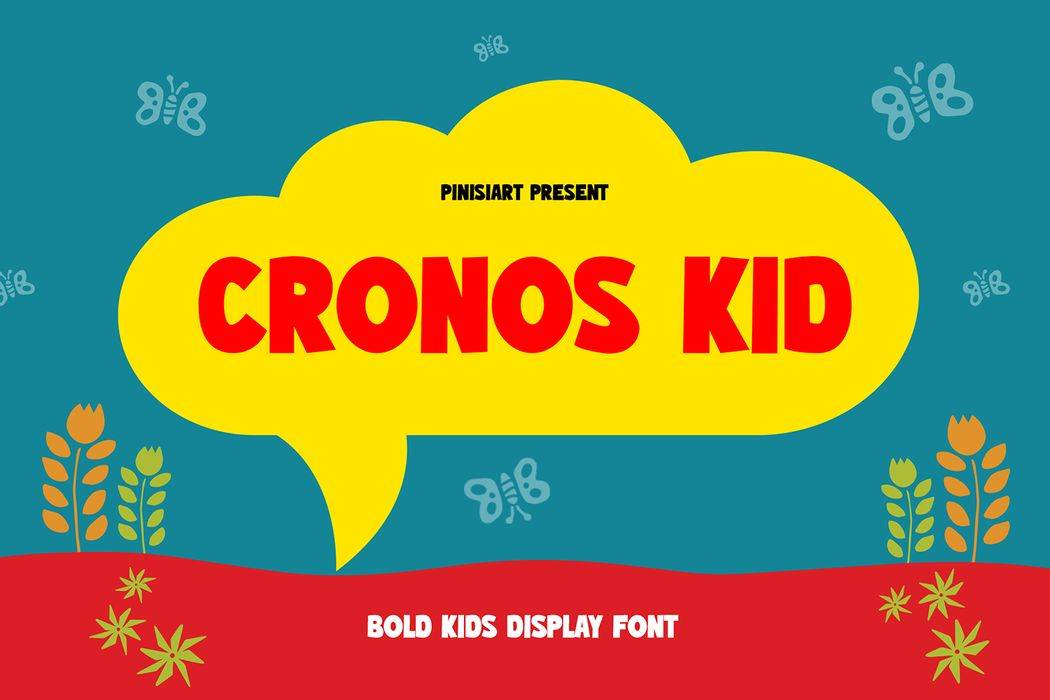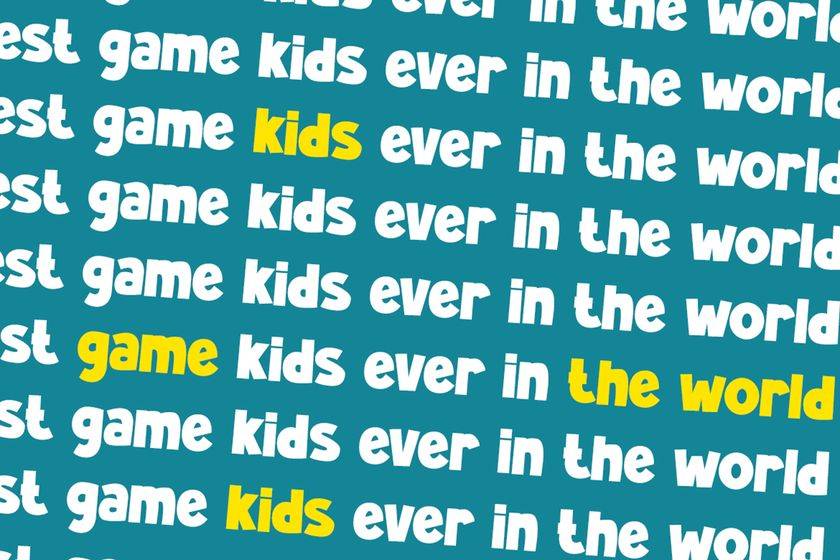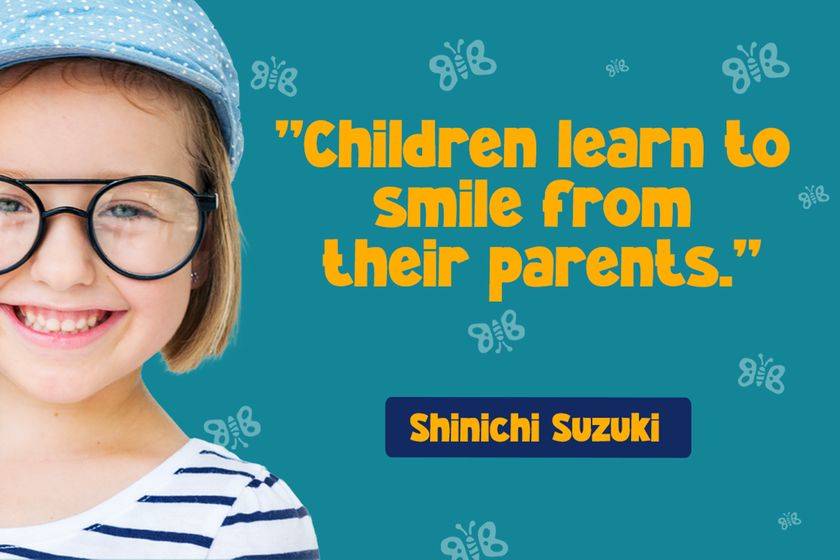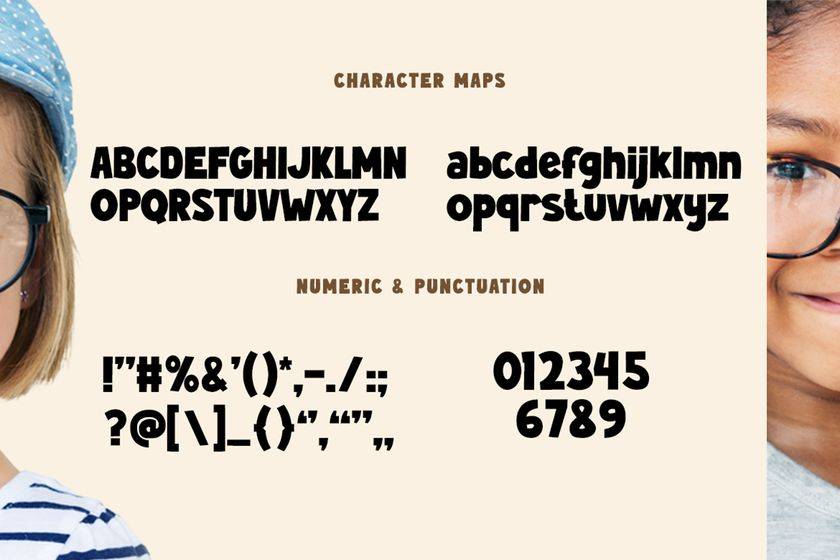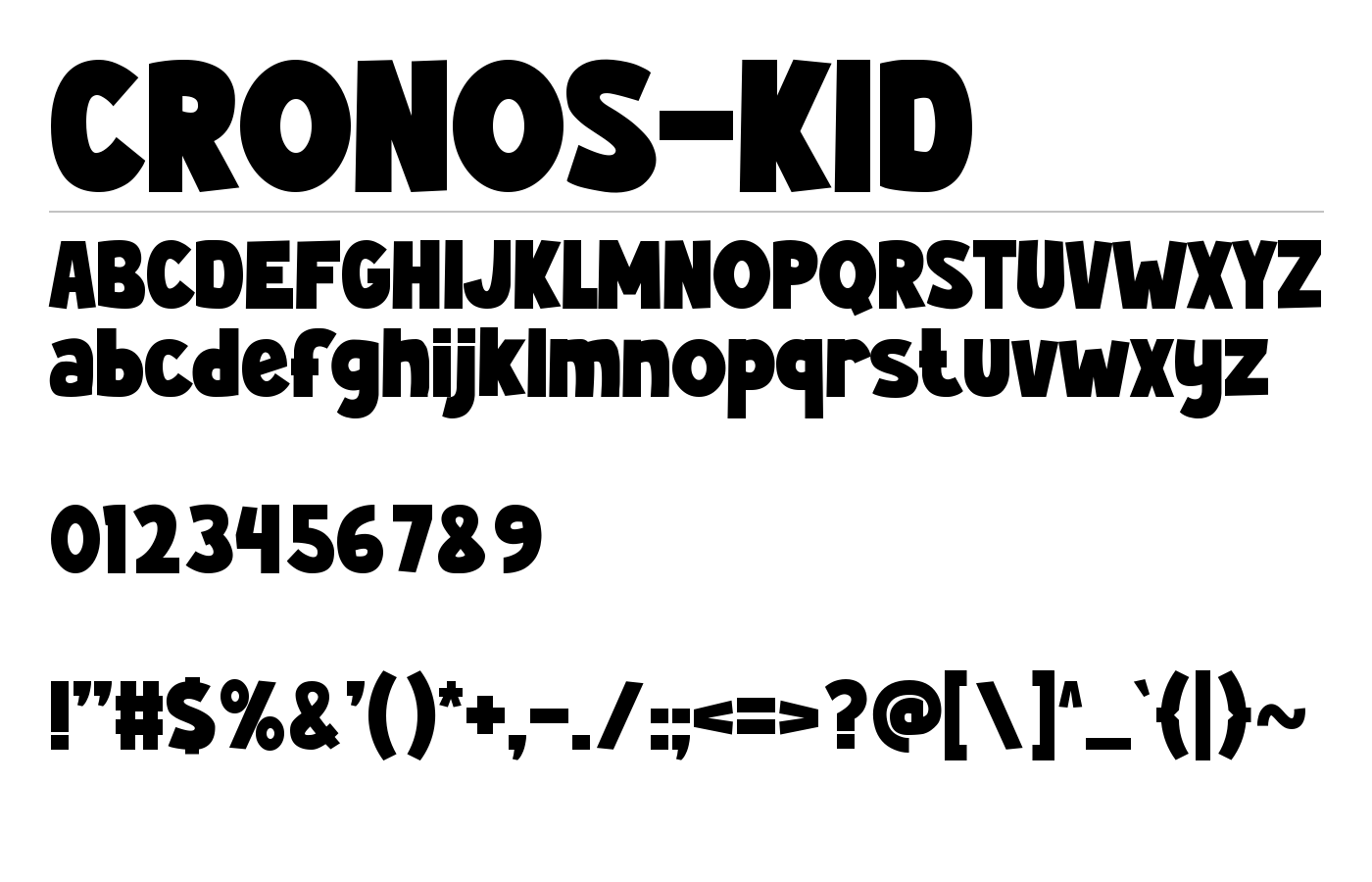
Cronos Kid is a bold, playful sans serif font with a chunky, slightly irregular style that gives it a fun and energetic character. Its moderate x-height and sturdy letterforms, combined with unique details like curved strokes and dynamic angles, make it perfect for children's brands, posters, and headlines where an approachable and lively look is desired. This font works well in designs that need a friendly, informal vibe with strong visual impact.
Cronos Kid Font
About Cronos Kid Font